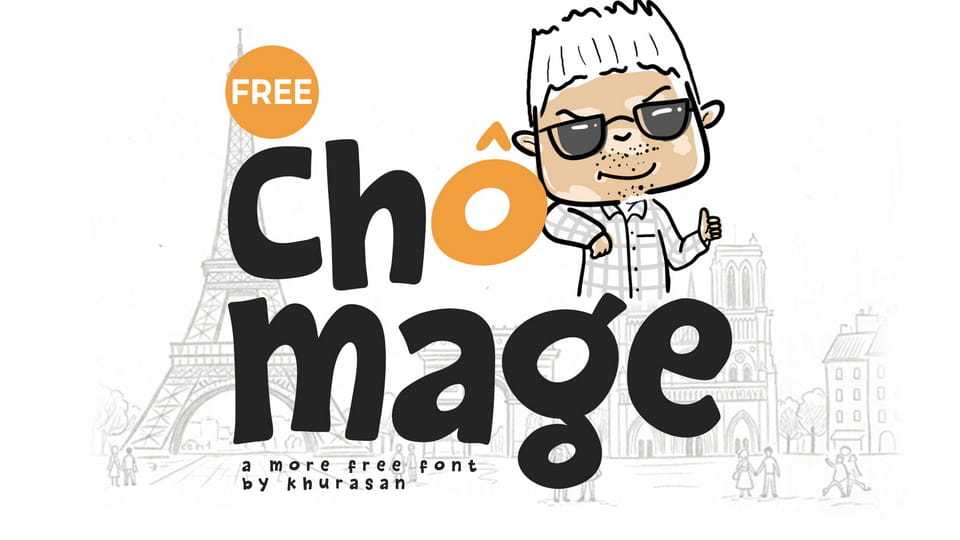
Download Chomage font, a bold handwritten display typeface with an expressive and carefree personality. Its thick bouncy strokes and casual letterforms create a relaxed, approachable style.